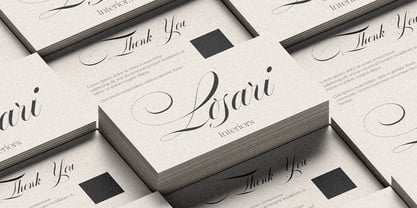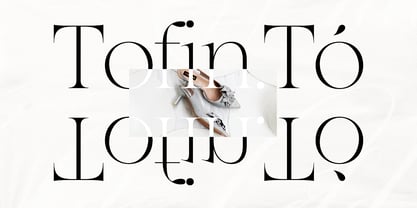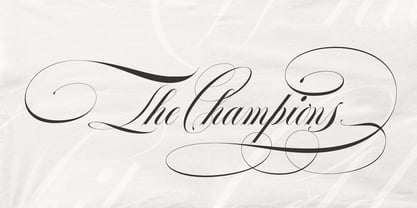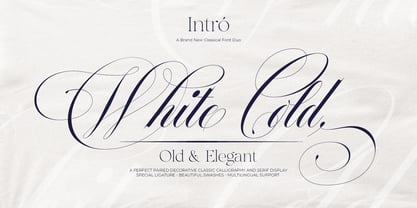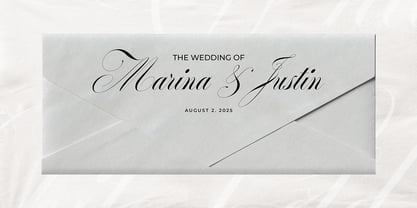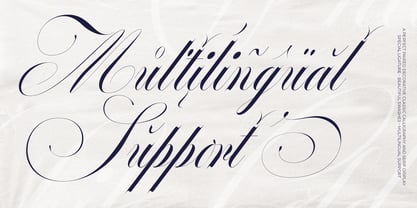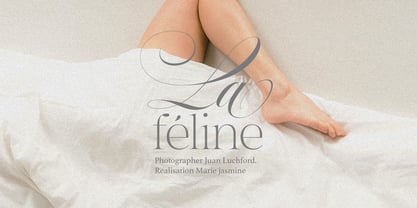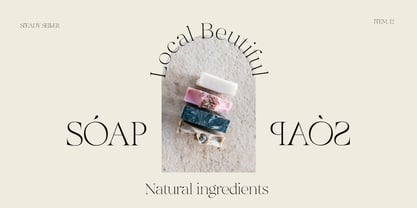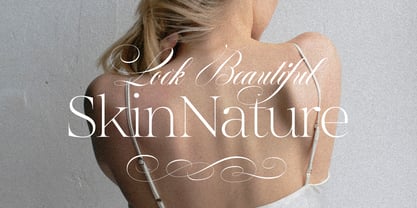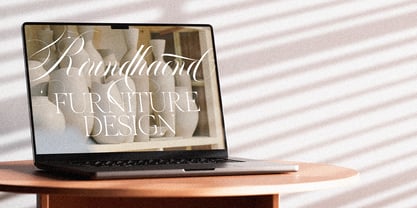
White Cold
by Alcode
The White Cold Font Family was designed by Sukjana Almunandar and published by Alcode. White Cold contains 2 styles and family package options. More about this family
White Cold is a classic and elegant font pair that will bring a unique style and a trendy look to your designs.
Comes with Serif Decorative and Calligraphy Typeface with trending ligatures and special character, this will make White Cold usable in all design projects and work perfectly to pair with any other font.
With duo styles you can create design such as wedding media, book covers, greeting cards, logos, branding, business cards and certificates, even for any design work that requires a classic, formal or luxurious look.
Designers: Sukjana Almunandar
Foundry: Alcode